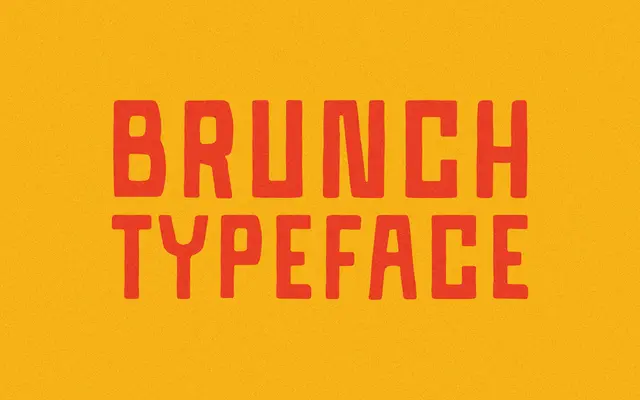
Brunch specimen from Taylor Penton
A single-weight display face that sits between geometric construction and handmade informality, aimed at branding and packaging.
Sold as a single Regular weight with 151 glyphs, Brunch covers basic Latin with a modest set of accented characters for Western European languages. The design blends geometric structure with hand-drawn character, making it a natural fit for consumer branding, food packaging and social media graphics. Licensing is straightforward: one flat fee covers commercial use for individuals and small teams without seat or traffic restrictions.
Described by the designer as part geometric, part handmade, placing it in the display category with a hybrid subcategory that blends constructed letterforms with informal, hand-drawn qualities.